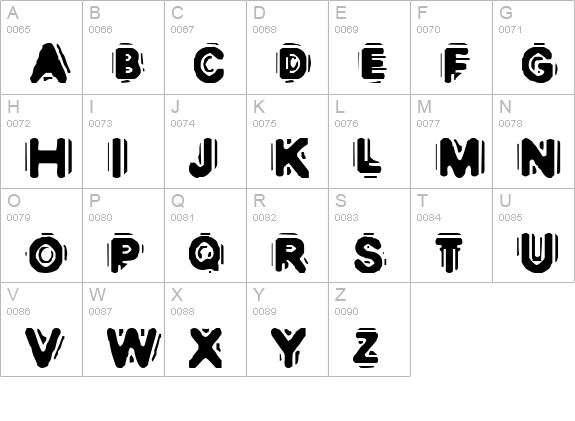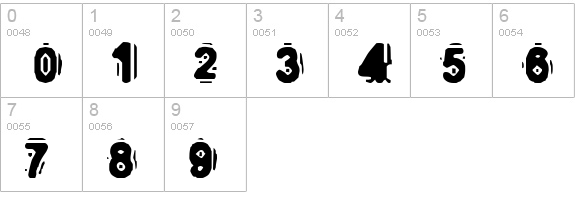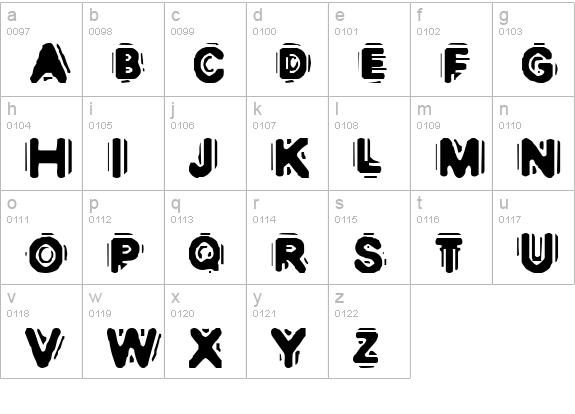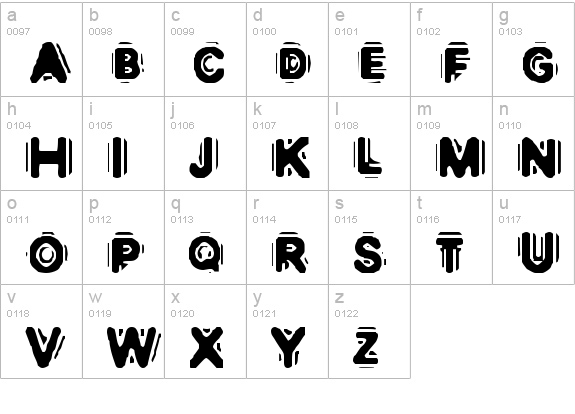
DISCOBOX Font Details
DISCOBOX font is a vibrant and energetic typeface that exudes a sense of fun and excitement. Its bold and dynamic lettering is perfect for creating eye-catching designs that demand attention. With a unique retro-inspired style, DISCOBOX font is reminiscent of disco era aesthetics, making it ideal for projects that require a touch of nostalgia and playfulness. This font is not only visually striking, but also versatile and easy to read, making it suitable for a wide range of design applications. Whether you're working on posters, flyers, invitations, or branding materials, DISCOBOX font will add a touch of personality and flair to your projects. Best of all, DISCOBOX font is available for free download at FontsMarket.com, allowing you to easily access this exciting typeface and incorporate it into your designs without any cost. Don't miss out on the opportunity to enhance your creations with the energetic and captivating DISCOBOX font today!